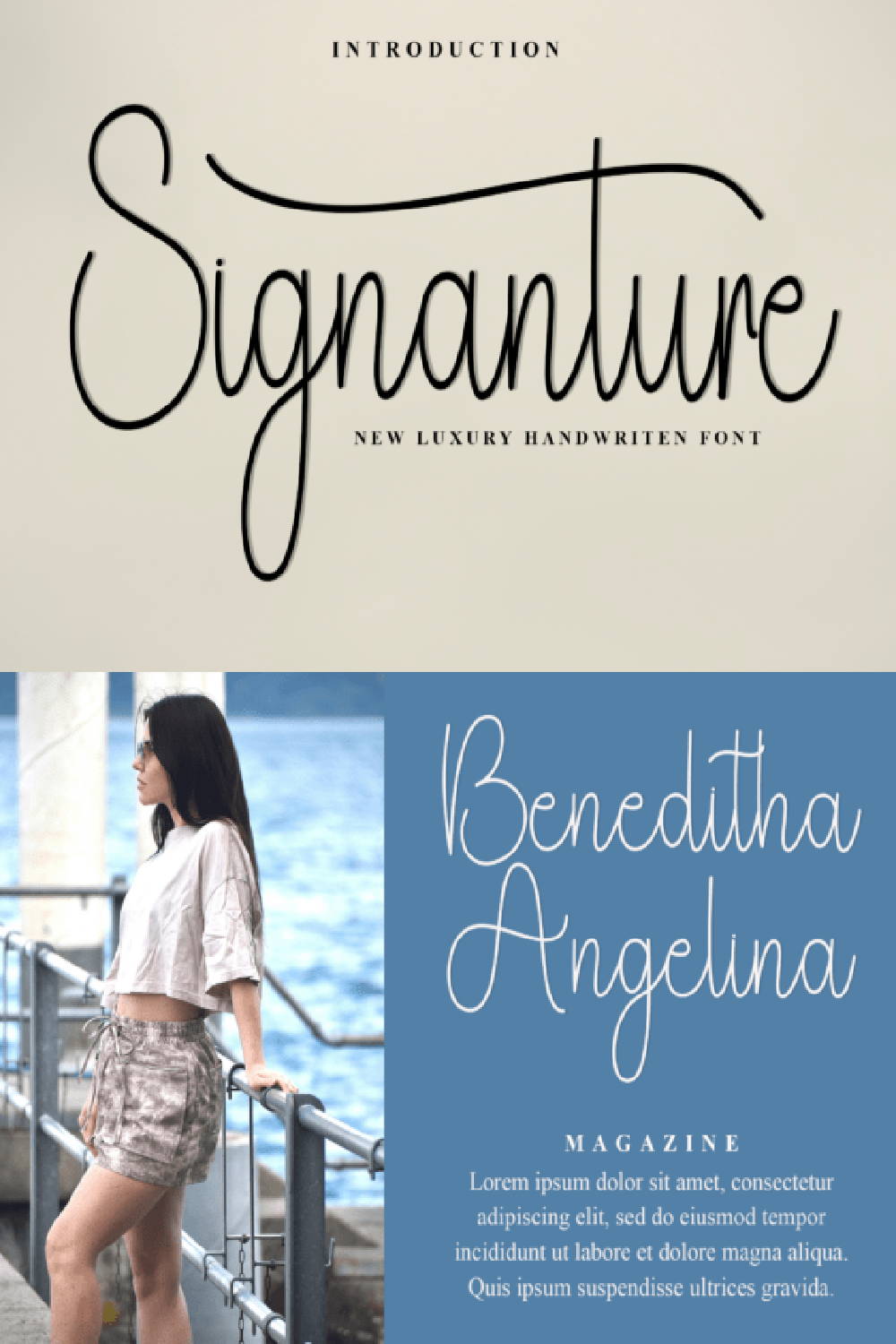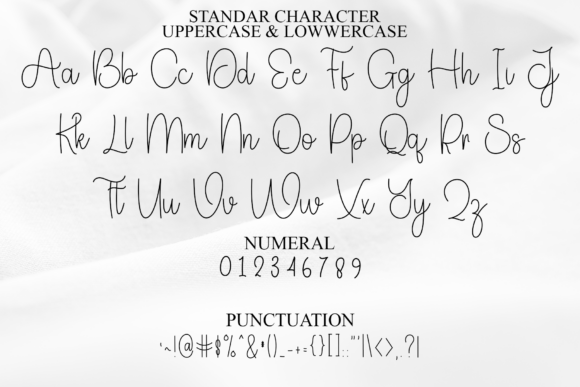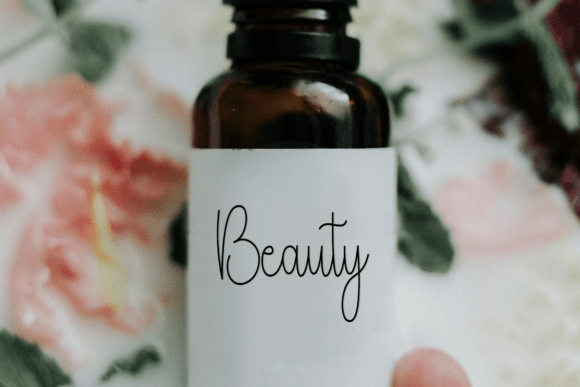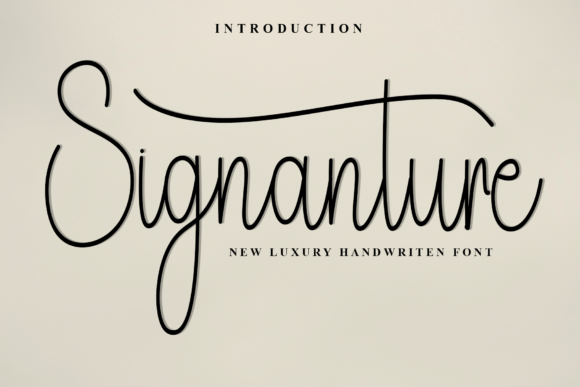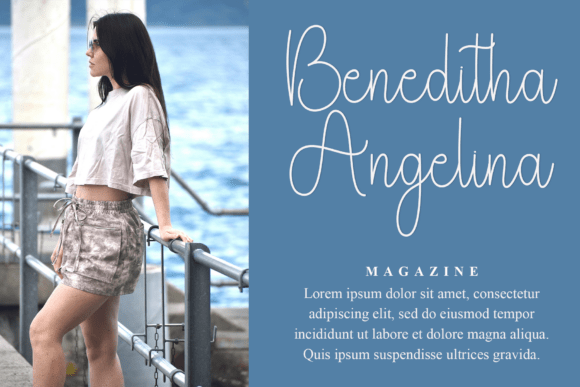
Signanture Font
About the Signanture Font
Presenting Signanture Font, a unique and stylish typeface that will make your work stand out. Signanture is a casual and creative font that exudes warmth and friendliness. Its round, playful strokes create a relaxed and approachable feel, perfect for personal projects, invitations, and social media graphics. The font’s charming, hand-drawn aesthetic adds a fun and unique touch to any design.